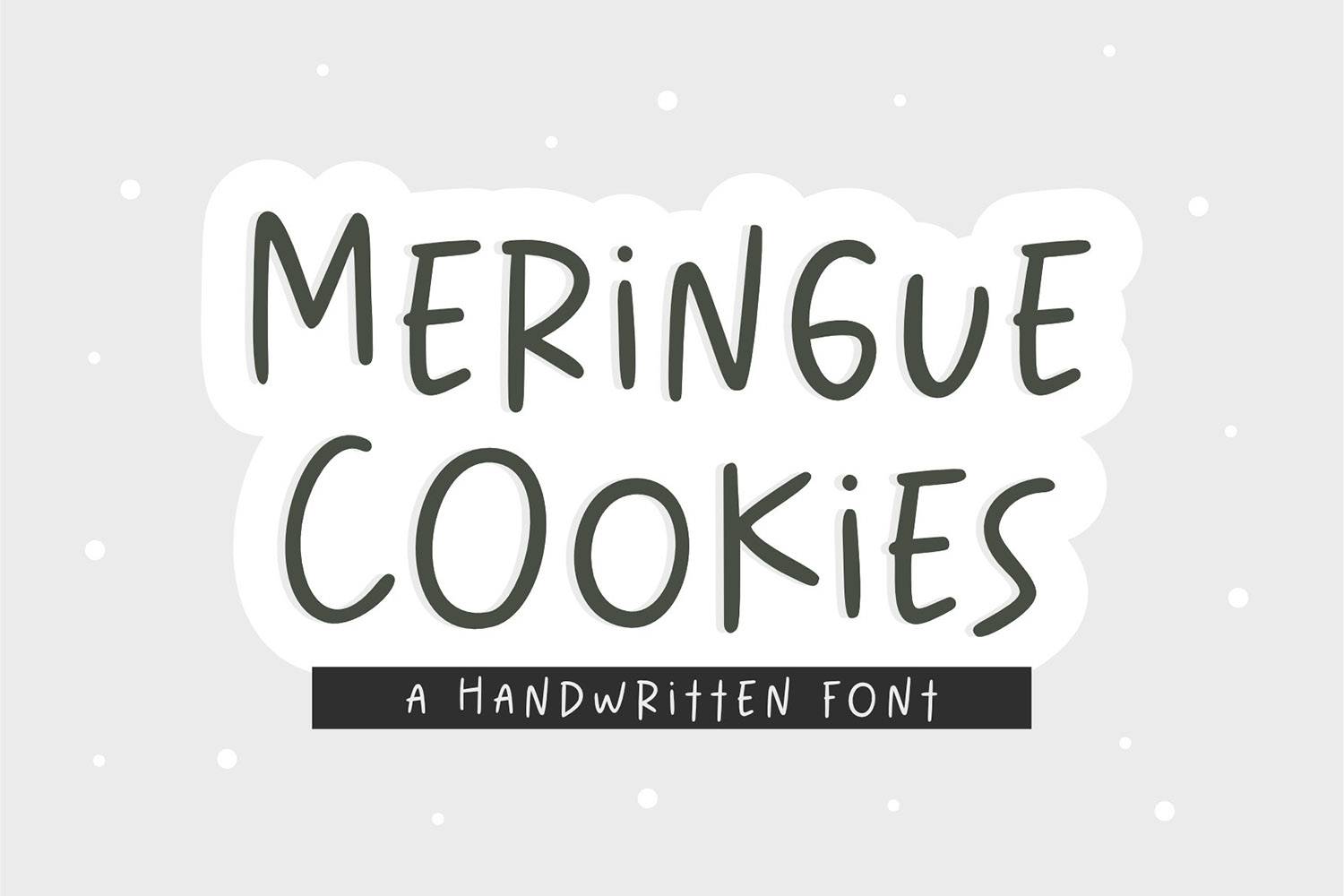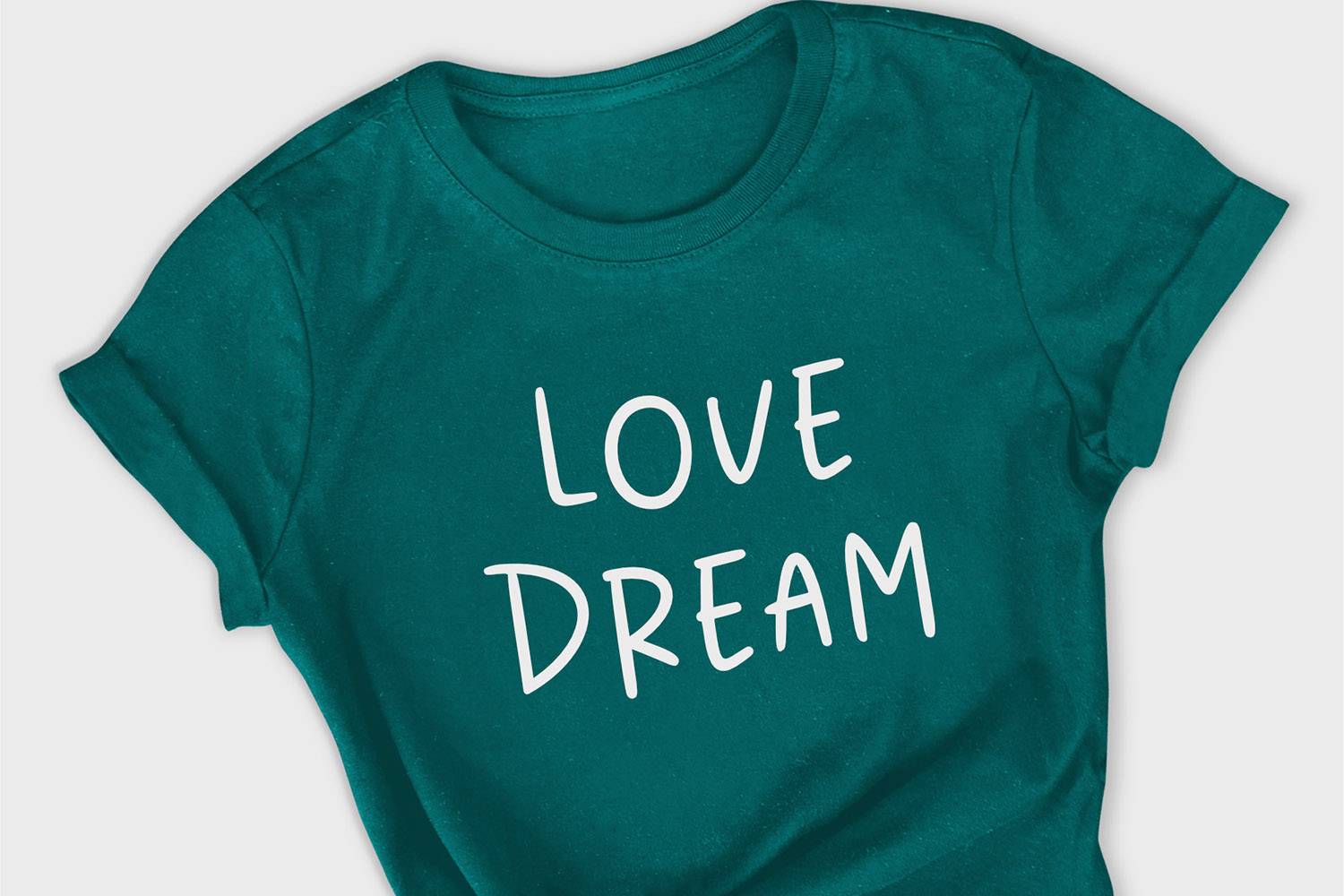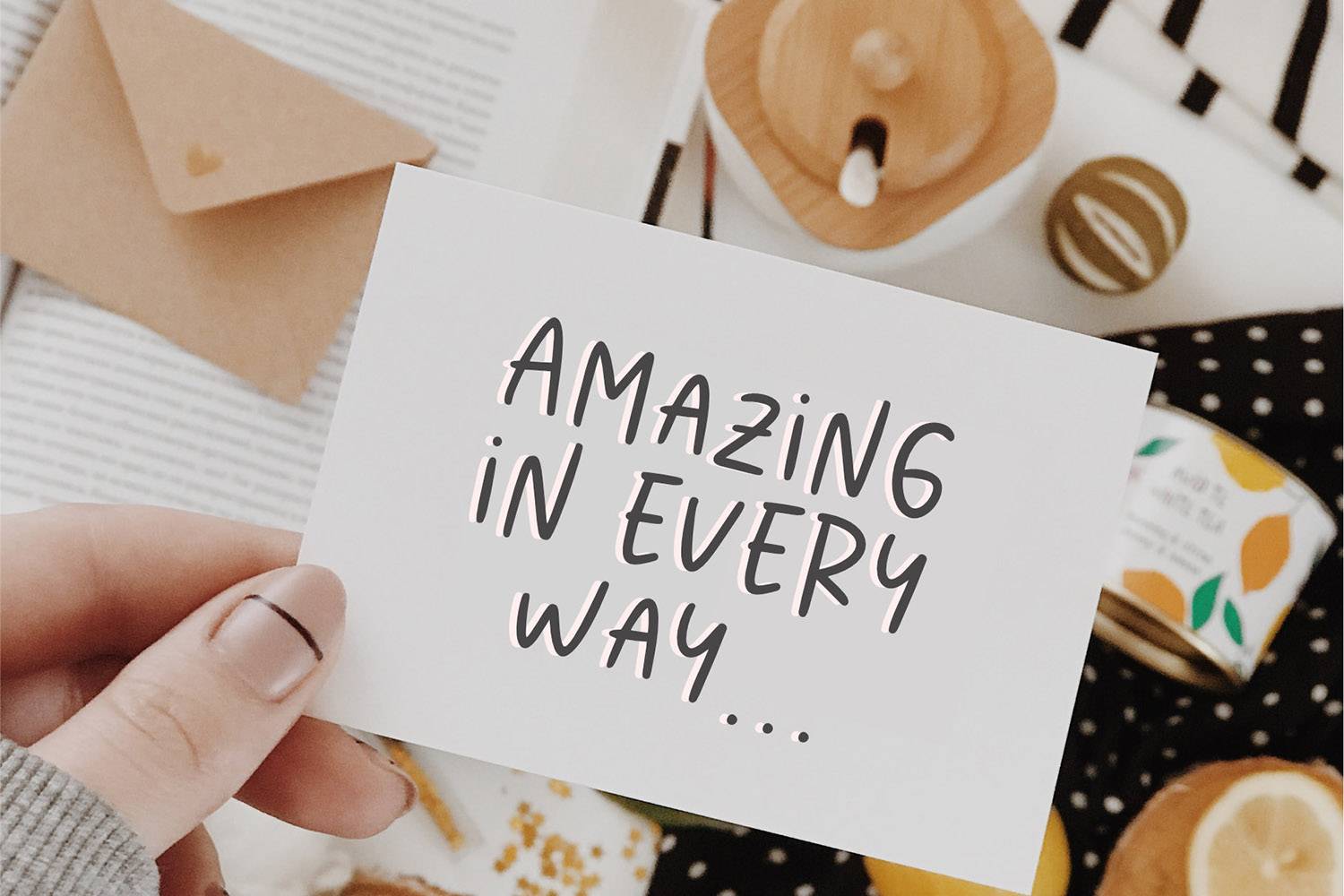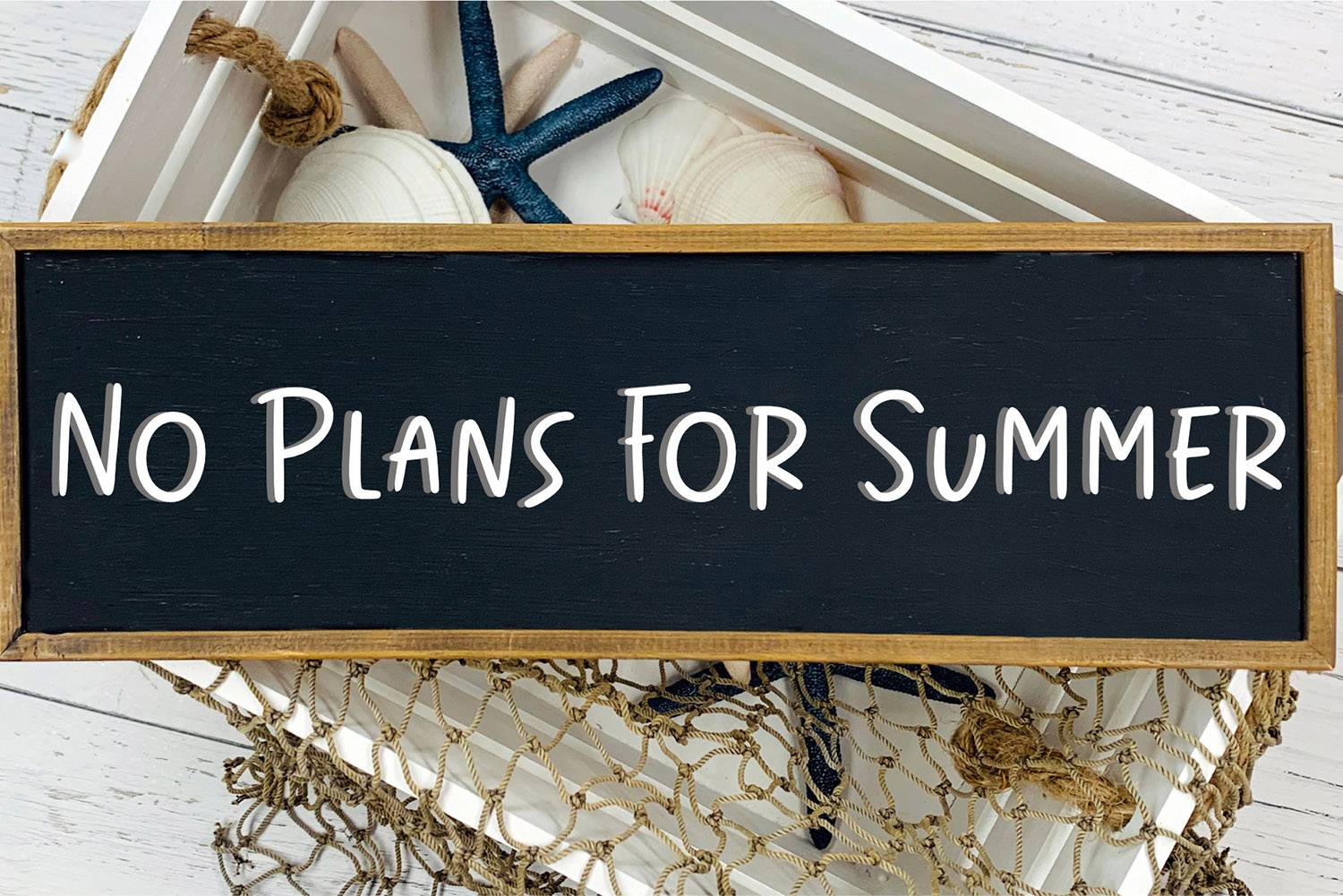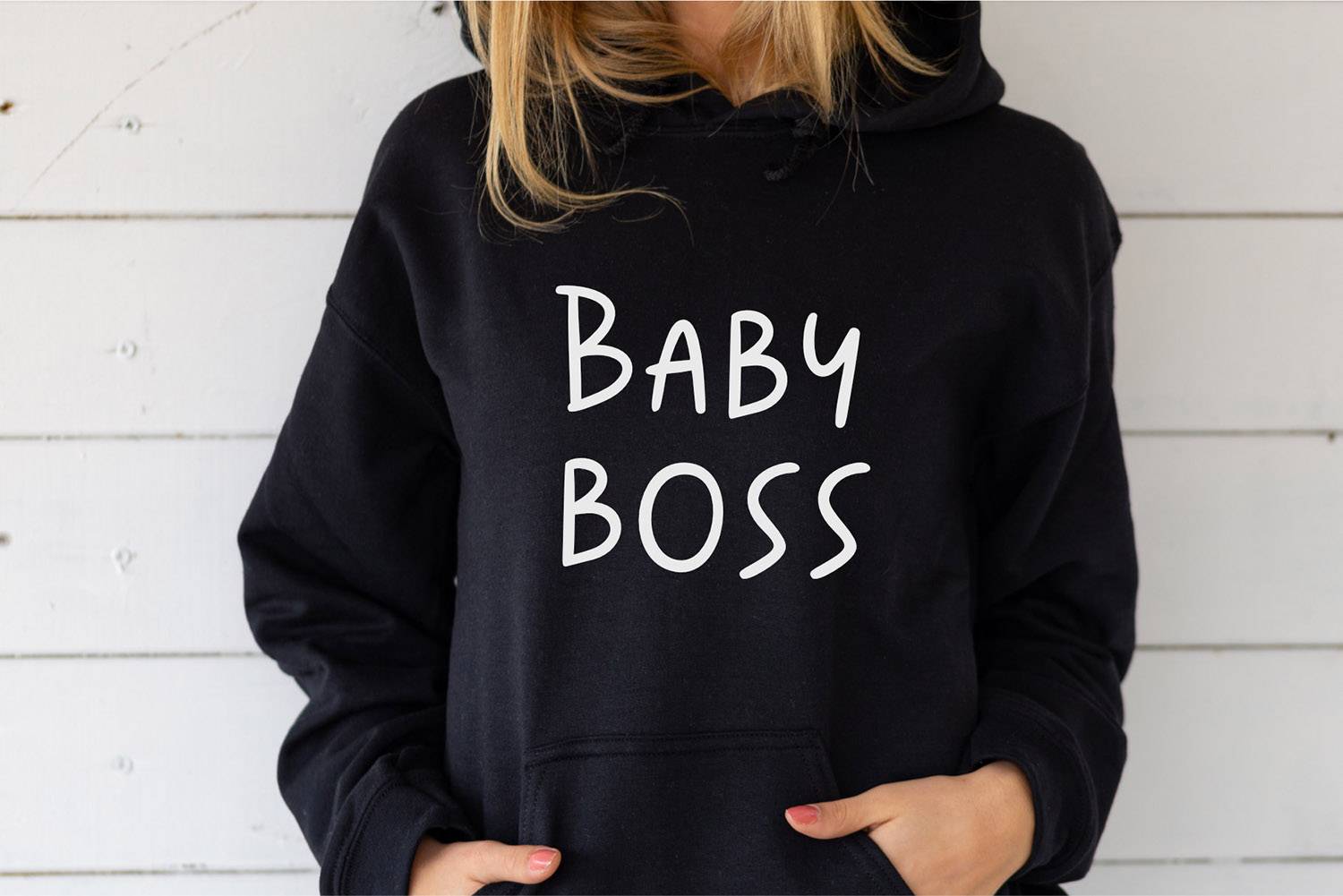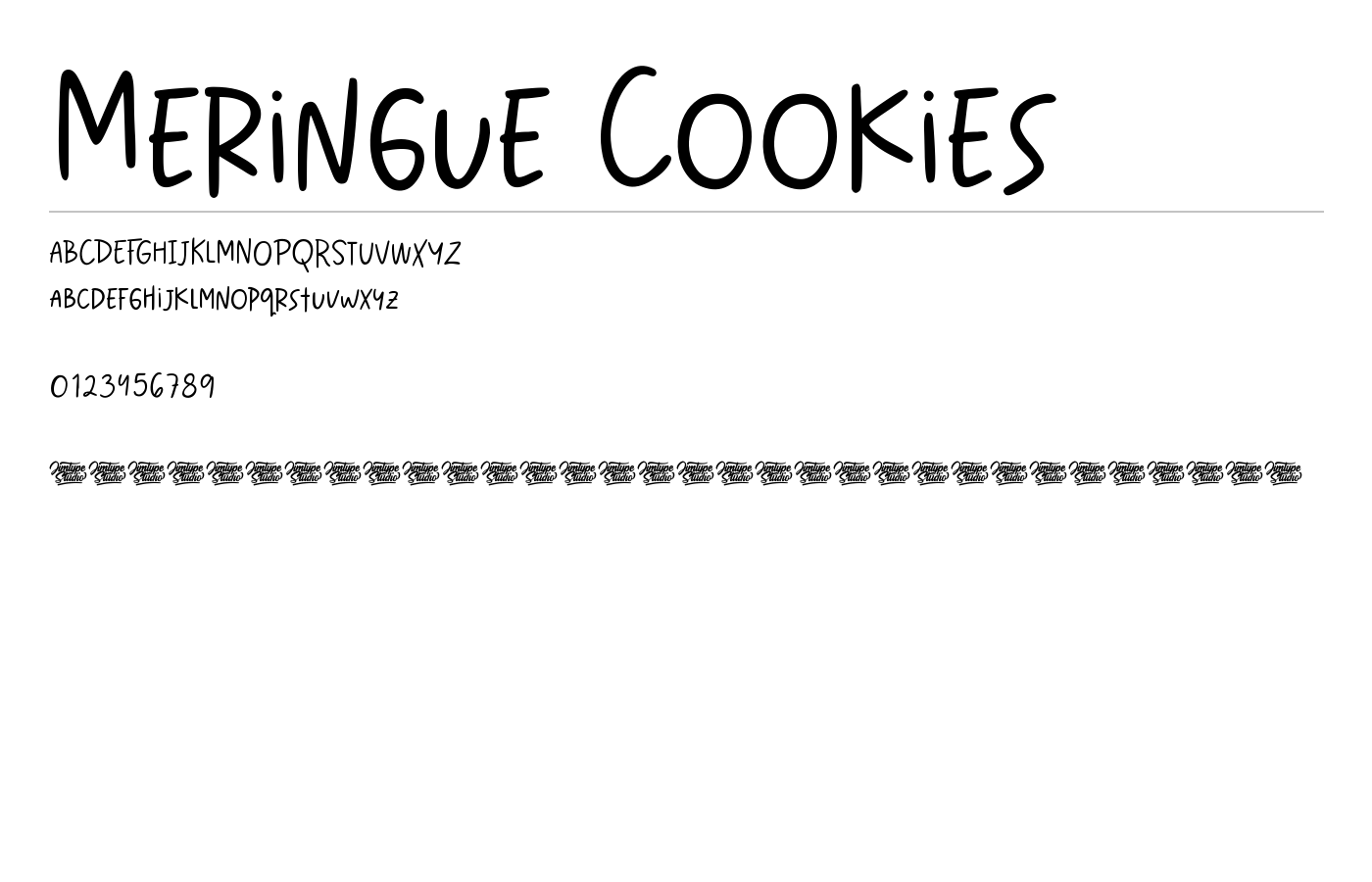
Meringue Cookies is a playful, casual handwritten font with a light weight and tall, narrow letterforms that convey a friendly and approachable feel. Its simple strokes and slightly irregular shapes give it a charming, informal personality, making it perfect for children’s products, invitations, or creative branding that wants to express warmth and whimsy. This font works well in headlines, logos, and other display uses where a personal, hand-crafted touch is desired.
Meringue Cookies Font
About Meringue Cookies Font
| Font family | Meringue Cookies Font |
| Designer | Jimtype Studio |